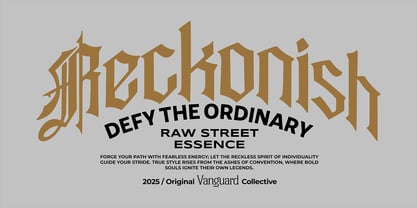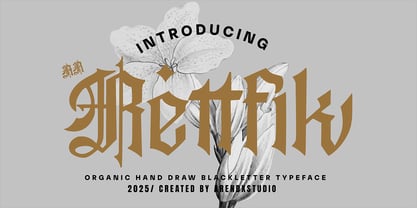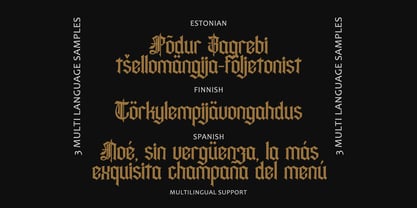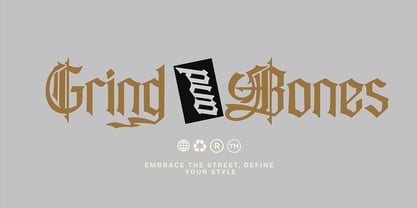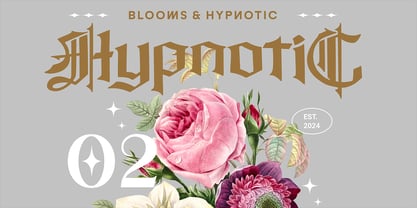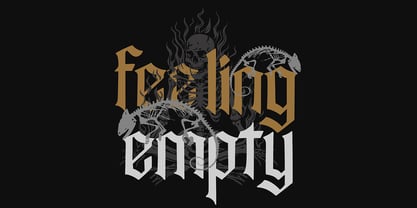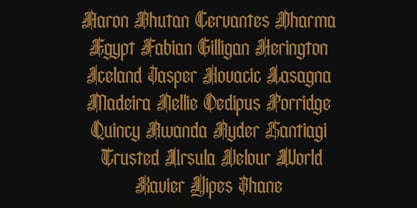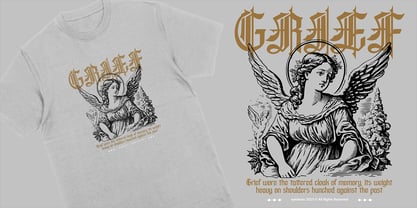
Rettvik
by Arendxstudio
The Rettvik Font Family was designed by Asep Rendi and published by Arendxstudio. Rettvik contains 1 styles. More about this family
Title: Rettvik – Organic Hand-Drawn Blackletter Typeface
Rettvik is an organic hand-drawn blackletter typeface that blends tradition with expressive craftsmanship. Designed to evoke strength, artistry, and character, this font is ideal for projects that require a gothic yet modern edge. Its bold strokes and organic flow make it perfect for branding, posters, apparel, packaging, tattoos, and editorial design. Rettvik carries the essence of historic blackletter style while offering a fresh and hand-crafted approach, ensuring every piece of text feels powerful and unique. Whether for striking headlines, distinctive logos, or creative visuals, Rettvik adds a timeless and commanding presence to your work.
Designers: Asep Rendi
Foundry: Arendxstudio